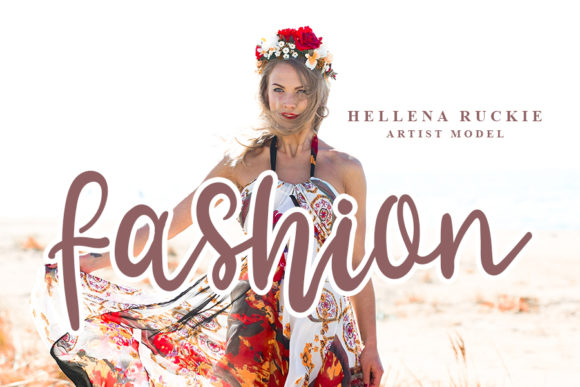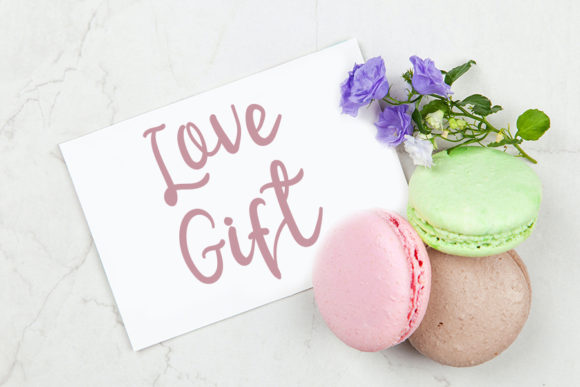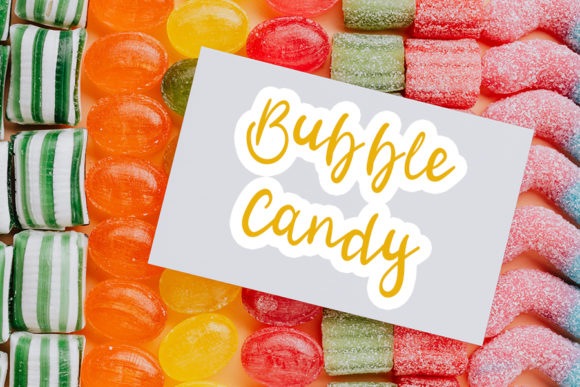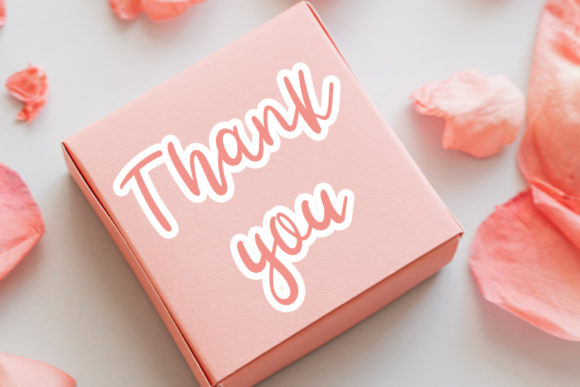
Minimalist Font
About Minimalist Font
Minimalist feels equally delicate and dainty. It looks lovely on wedding invitations, thank you cards, quotes, greeting cards, logos, business cards and every other design which needs a sweet touch.